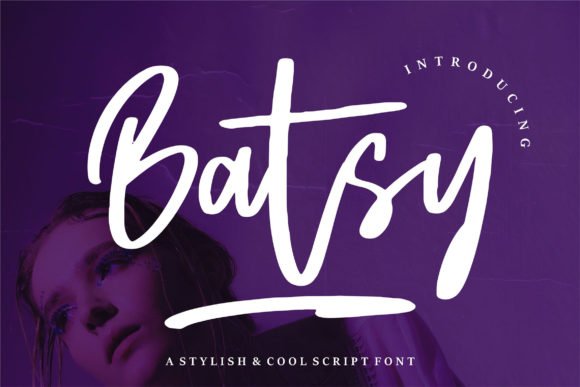
The Perfect Touch: Unveiling the Charm of Batsy Font
Have you ever been brainstorming ideas for a project, and suddenly, a spark of creativity strikes? It’s that moment when everything falls into place, and you know exactly what you need to take your design to the next level. For many designers, that moment often involves the perfect font – and we’re here to introduce you to a game-changer: Batsy Font.
Batsy Font is a delightful, handwritten font that adds a touch of warmth and personality to any design. Whether you’re crafting a wedding invitation, a heartfelt thank you card, or a logo that truly represents your brand, Batsy Font is the perfect companion. Its casual, laid-back vibe makes it an instant favorite among designers, who appreciate its versatility and ability to elevate any design with a customized touch.
Batsy Font Key Features
- Unique Characteristics: Batsy Font features a unique, hand-drawn design with bold lines and expressive letterforms, making it perfect for adding a touch of whimsy and personality to your designs.
- Font Styles: Batsy Font includes a range of font styles, including Regular, Bold, Italic, and Bold Italic, allowing you to add variety and depth to your typography.
Batsy Font Review
Overall, I think the Batsy font has some really interesting aspects to it, but it also has some limitations. Let’s dive into the details.
- Unique Design**: The Batsy font has a distinctive and quirky design that can add a lot of personality to a project.
- High-Quality Rendering**: The font is well-rendered, with clear and crisp lines that make it easy to read.
- Great for Titles and Headings**: The font is perfect for titles and headings, as it adds a touch of whimsy and fun to the text.
- Limited Legibility**: The font can be difficult to read at smaller sizes, especially in body text.
- Lack of Consistency**: The font’s unique design can sometimes feel inconsistent, with some letters and symbols feeling out of place.
- Not Suitable for Body Text**: Due to the font’s limited legibility and inconsistent design, it’s not suitable for body text.
The Batsy font is a great choice for titles and headings, but it may not be the best option for body text. Its unique design and high-quality rendering make it a great addition to any project, but its limitations should be taken into consideration.
Tips for Getting the Most Out of Batsy Font
Here are some tips to help you get the most out of Batsy Font:
- Use Batsy Font for titles and headings to add a touch of whimsy to your designs.
- Pair Batsy Font with other playful fonts to create a unique and eye-catching look.
- Experiment with different font sizes and colors to achieve the desired effect.
Batsy Font is perfect for:
- Children’s book covers and illustrations
- Whimsical branding and marketing materials
Alternatives to “Batsy Font” for Designers
Great Vibes Font is a modern, elegant script font that is perfect for creating a sophisticated and stylish look. It is ideal for use in logos, branding, and other graphic design elements where a touch of luxury is desired.
Compared to Batsy Font, Great Vibes Font has a more refined and polished appearance, making it suitable for high-end designs. While Batsy Font is more playful and whimsical, Great Vibes Font exudes a sense of sophistication and elegance.
Alex Brush Font is a beautiful, hand-painted script font that is perfect for creating a unique and personalized look. It is ideal for use in wedding invitations, stationery, and other designs where a touch of handmade charm is desired.
What is the recommended font size for the Batsy Font?
The recommended font size for the Batsy Font varies depending on the application and the intended use. For body text, a font size of 12-14 points is recommended. For headings, a font size of 18-24 points is recommended. It’s also worth noting that the font size should be adjusted according to the screen resolution and the device being used.